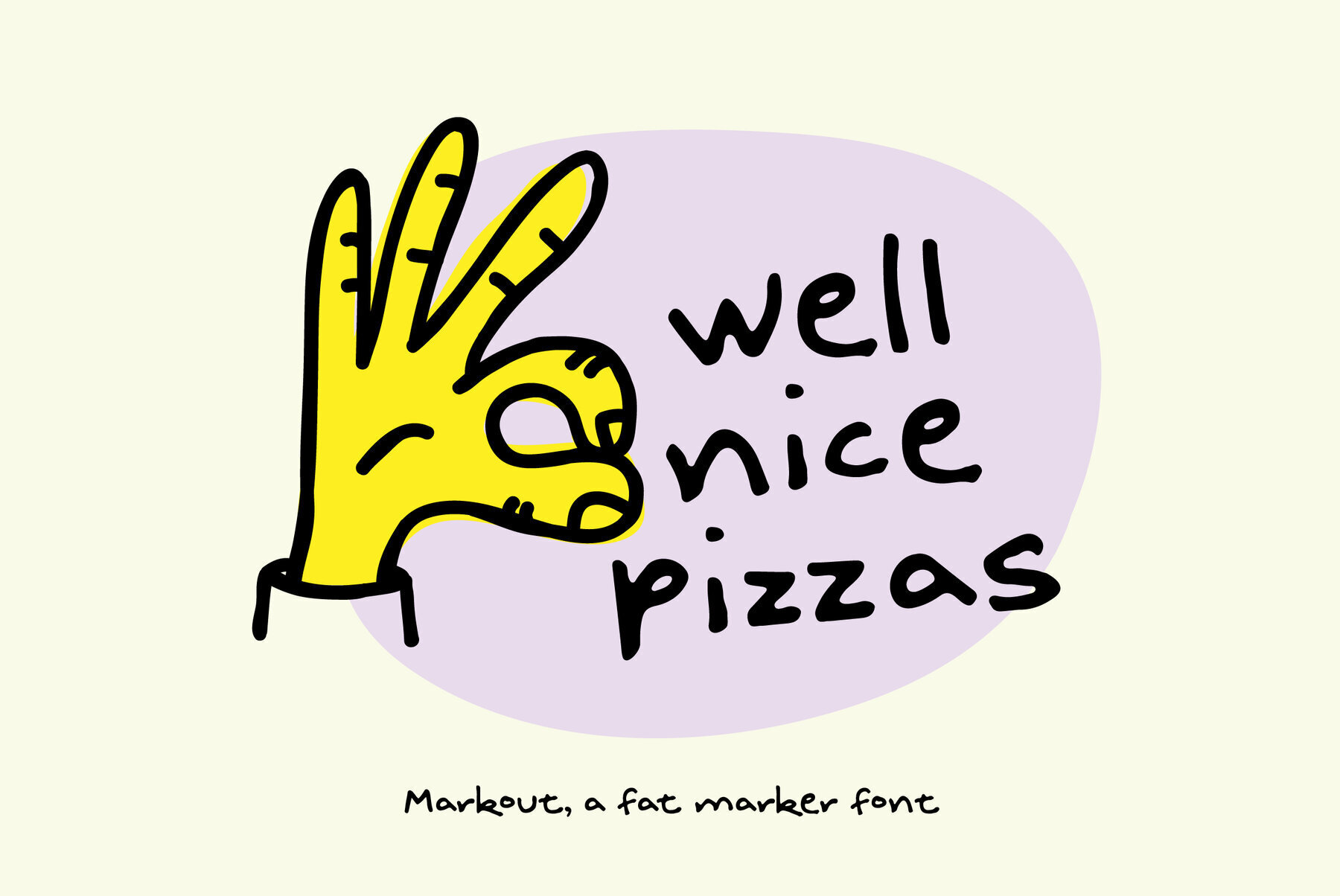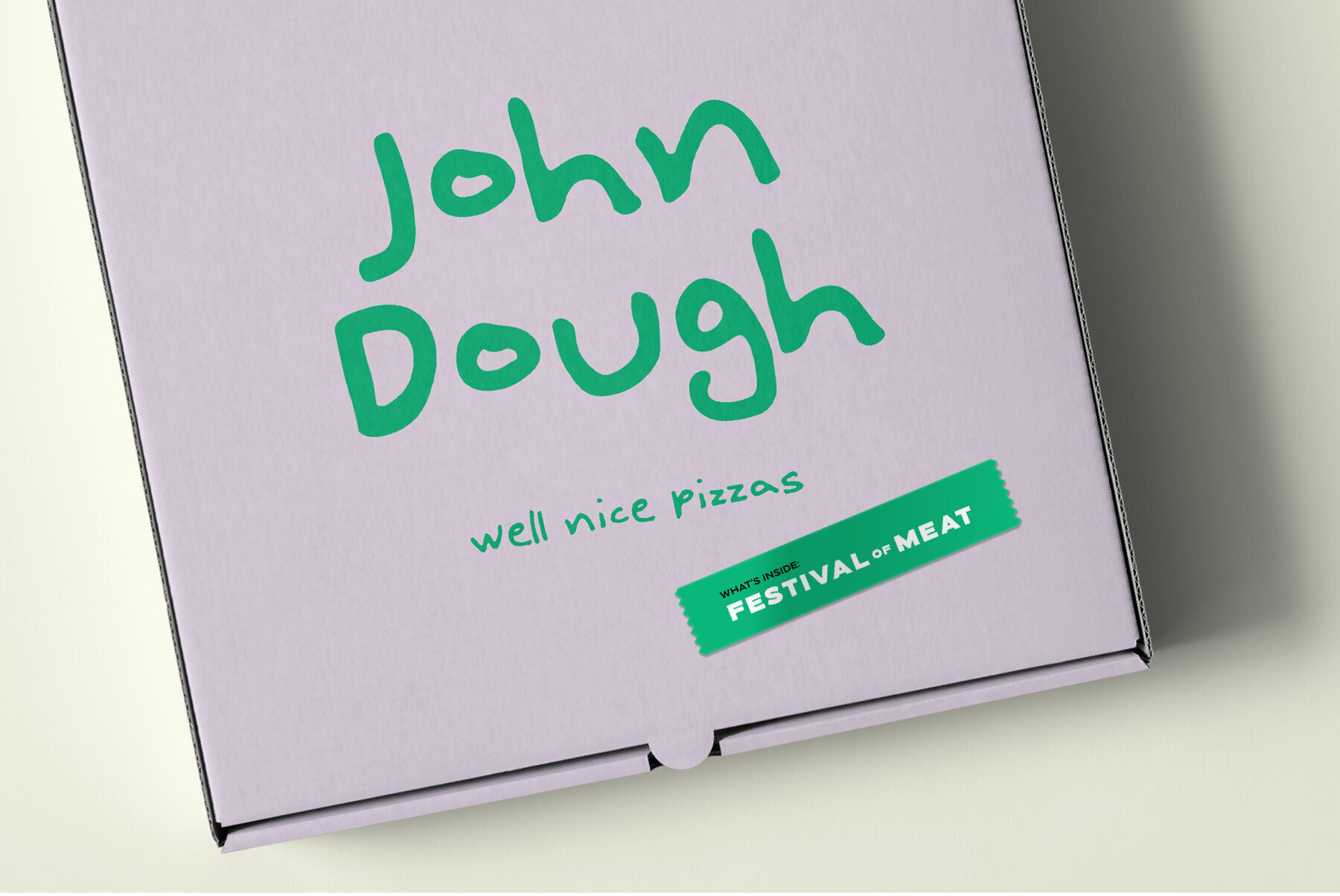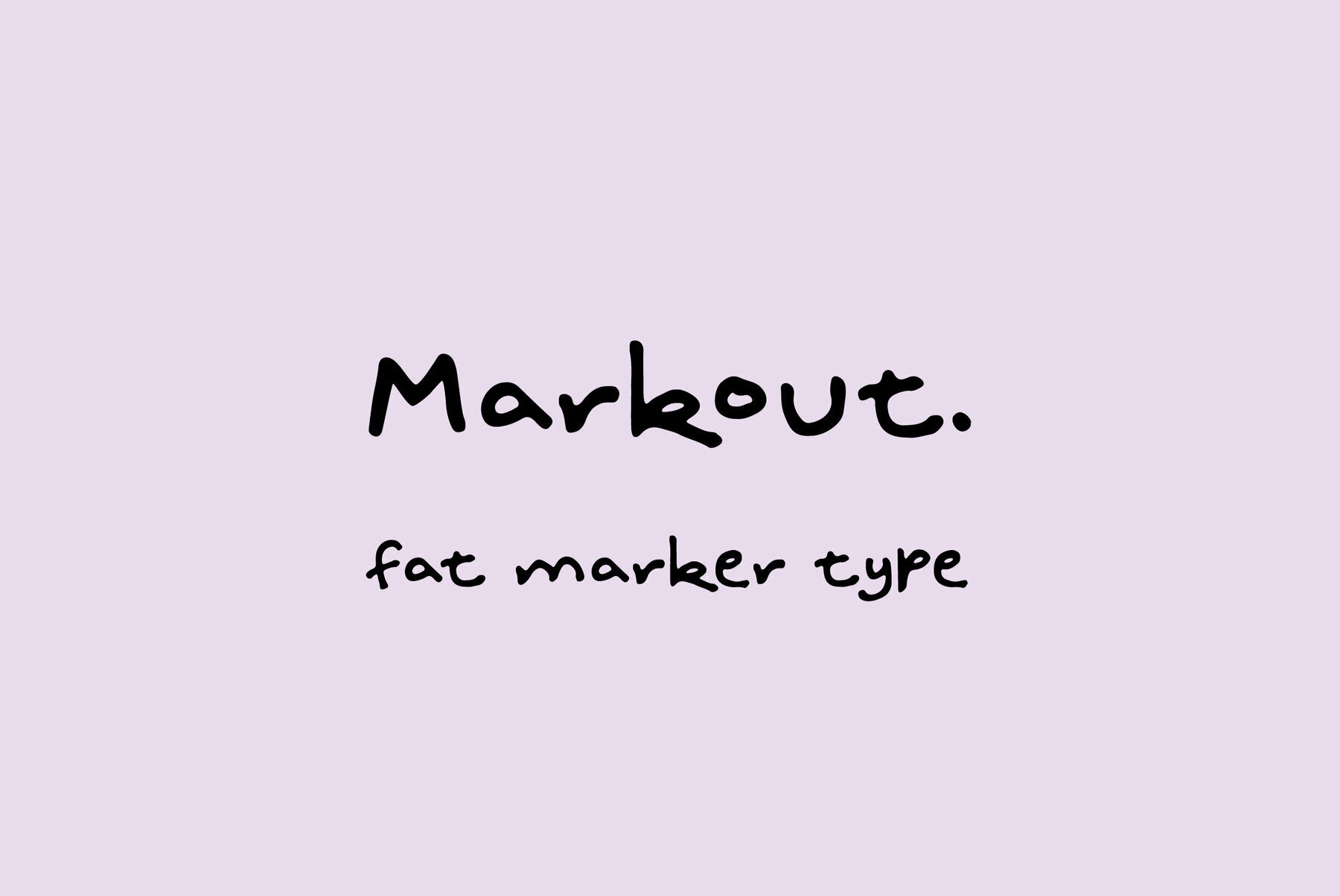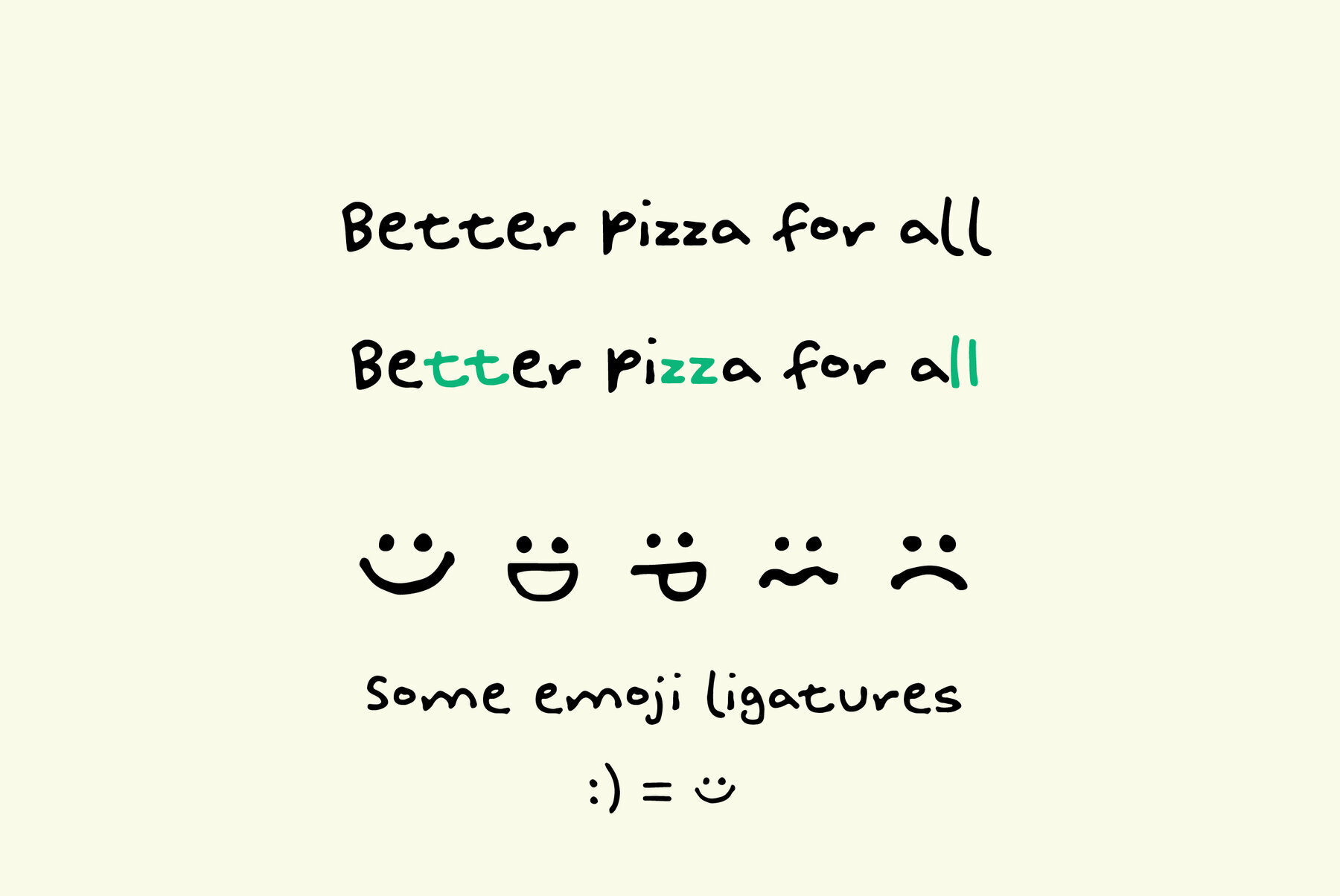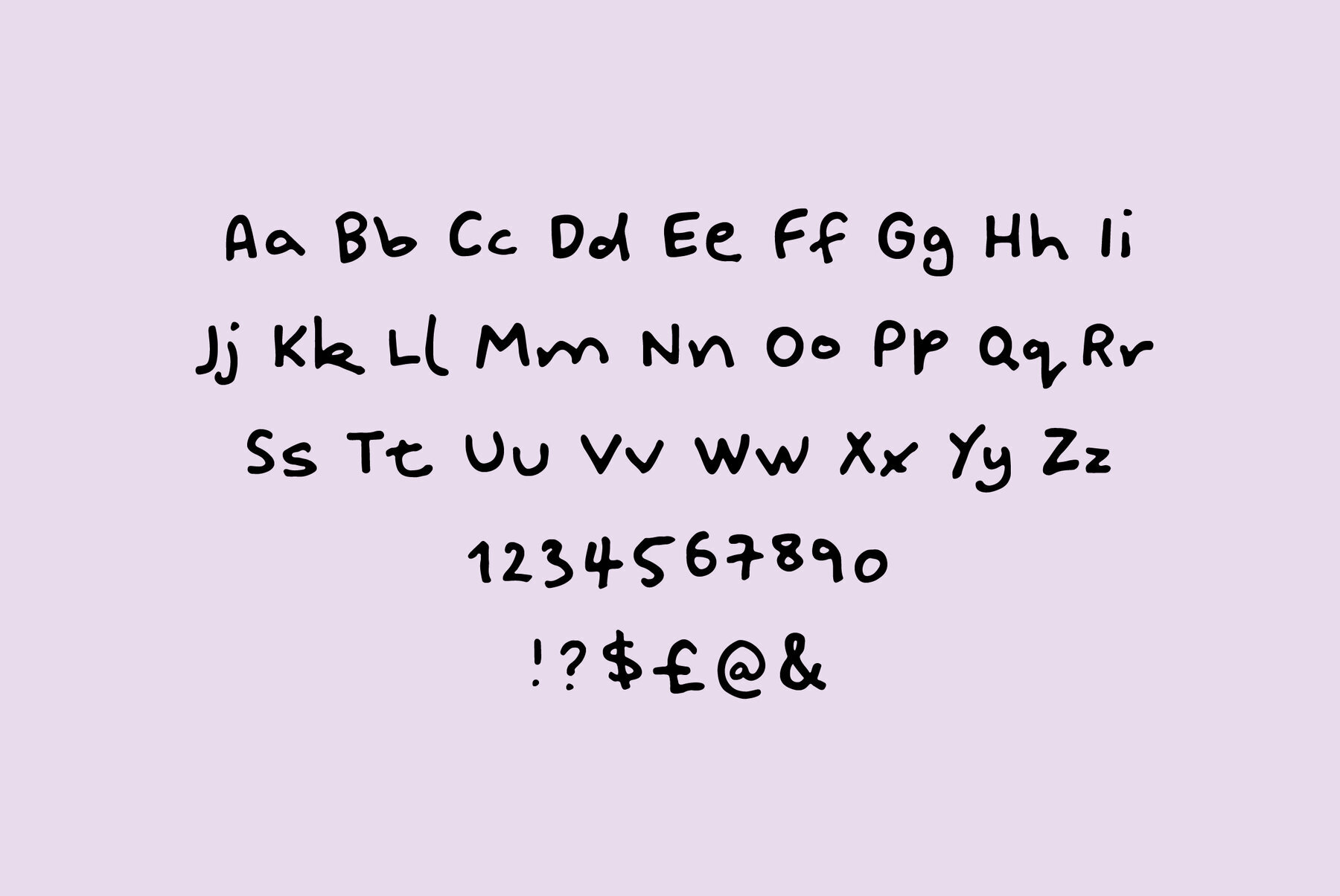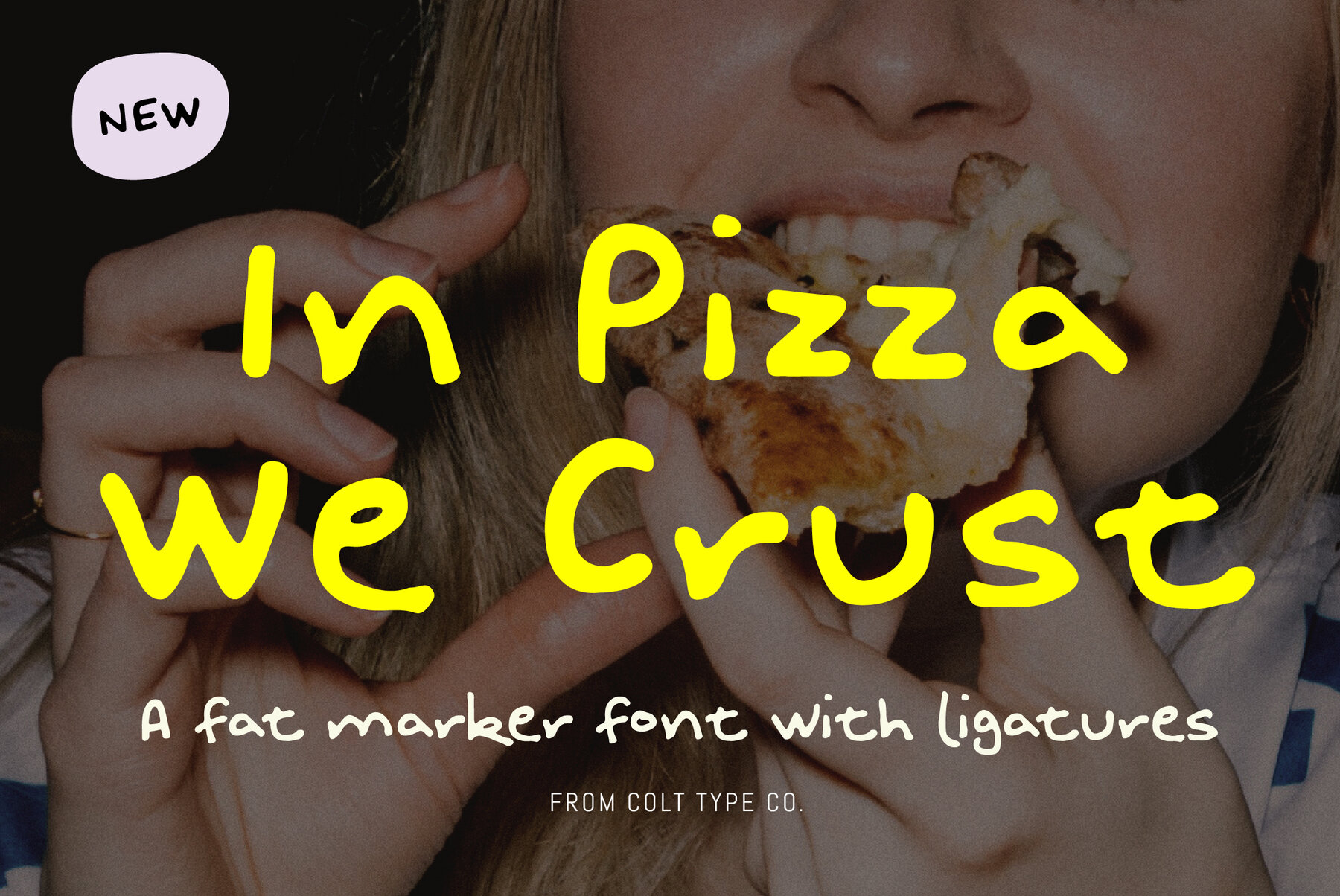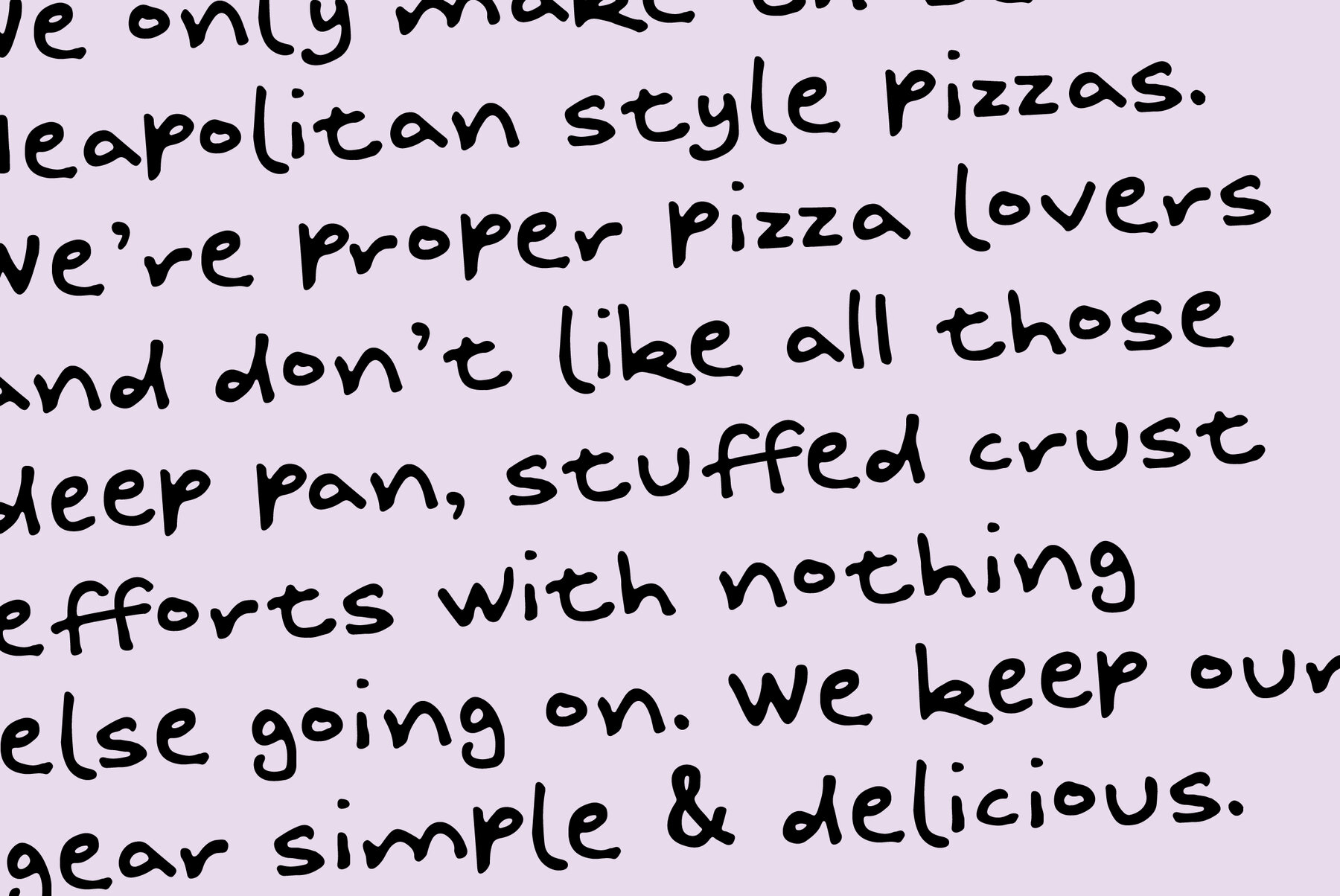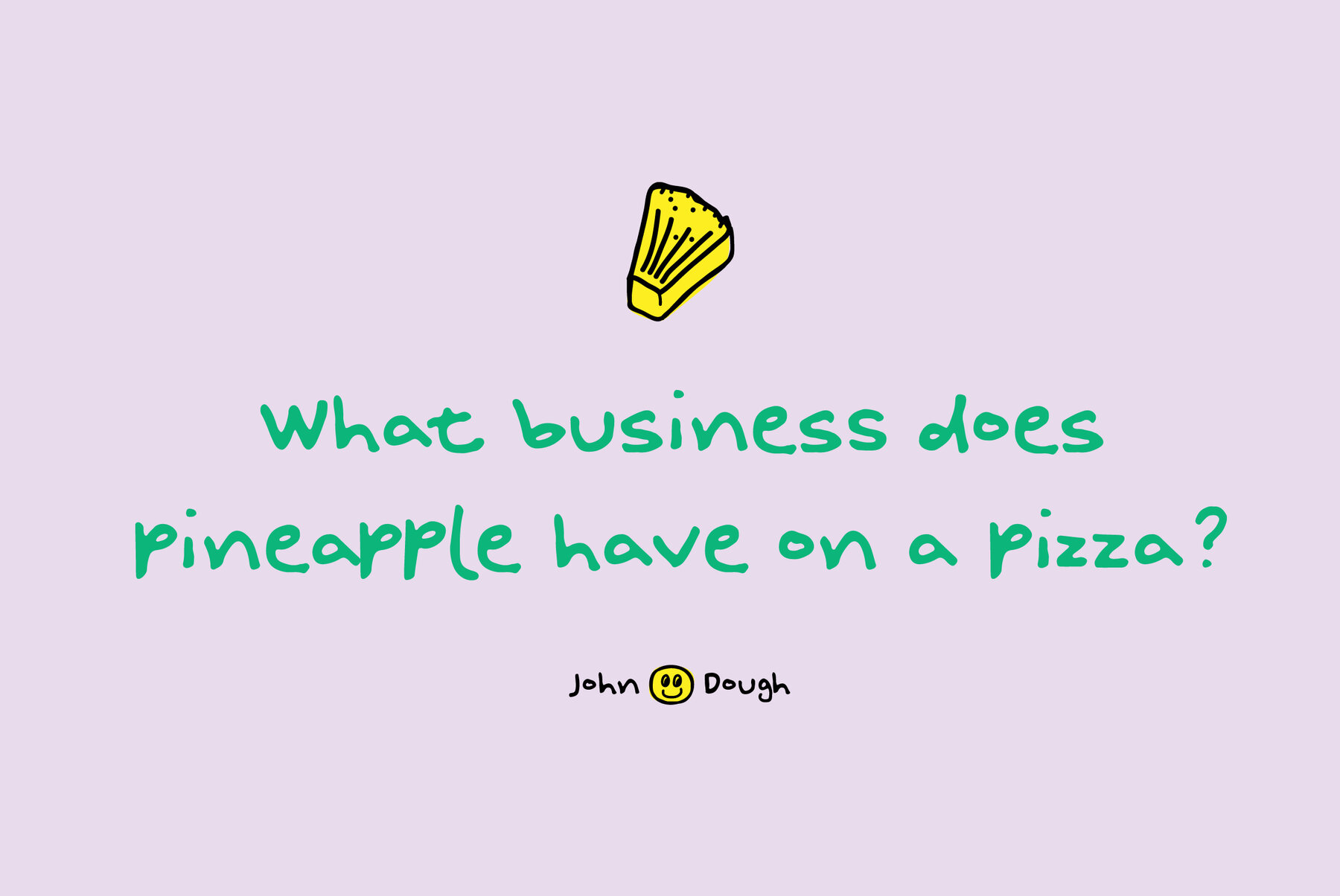
Markout Font
Markout
A handwritten marker pen font. With a fun and playful tone, Markout is a great display font for headings, titles, logos, books, etc.
To make your writing look more natural there are ligatures for double letters: cc, dd, ee, ff, gg, ll, mm, nn, oo, pp, ss, tt and the most important pizza – zz.
I didn’t notice it at the time of making this font, but this has a bit of a Simpsons feel about it.